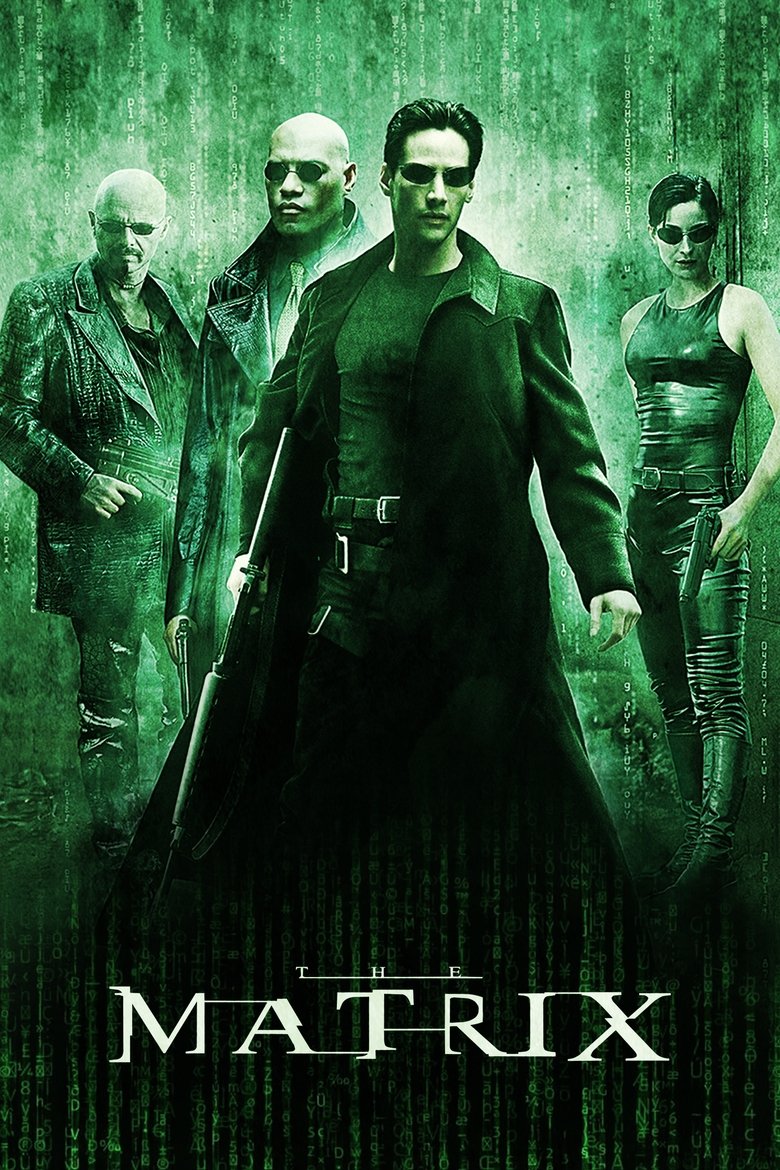
About the The Matrix font
The Matrix is all glowing green code. Orbitron recreates that digital, cyber-future look for free.
What font is used in the The Matrix logo?+
The original The Matrix logo uses custom lettering. This generator recreates the look with Orbitron — a free, open-license font you can style and download.
How do I make The Matrix-style text?+